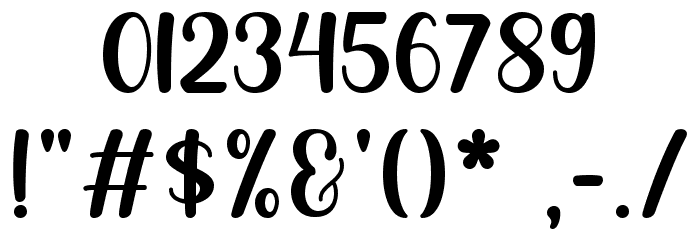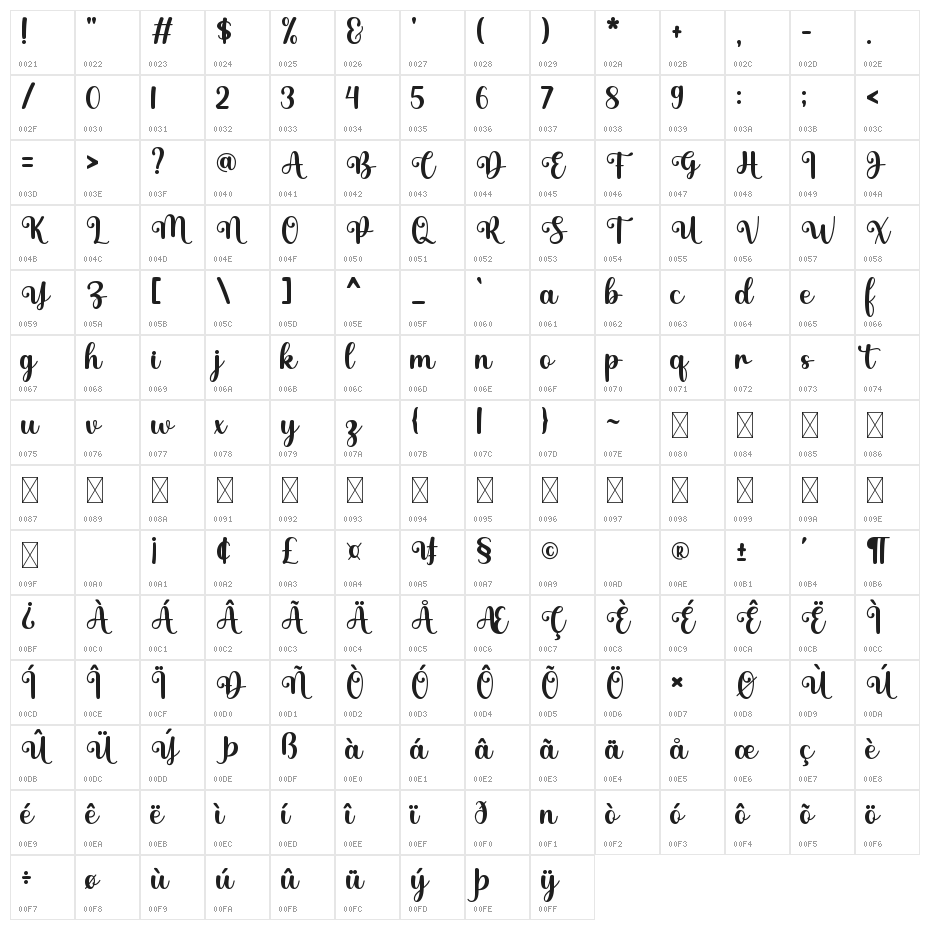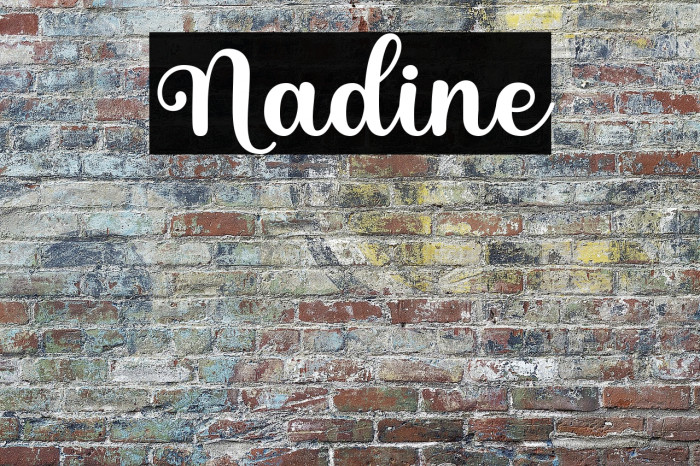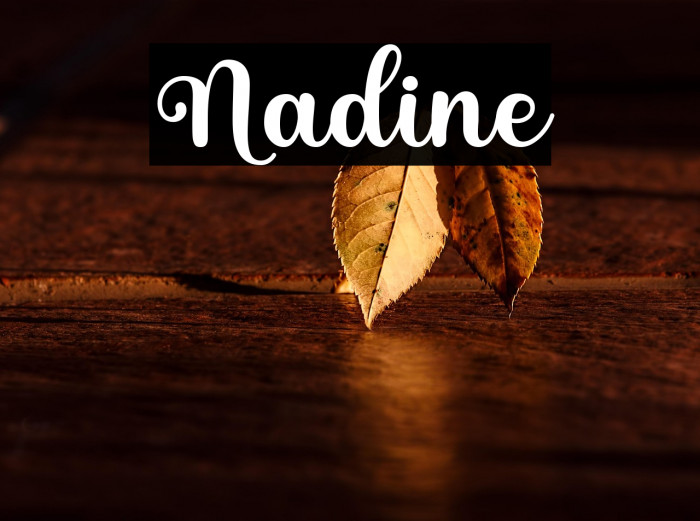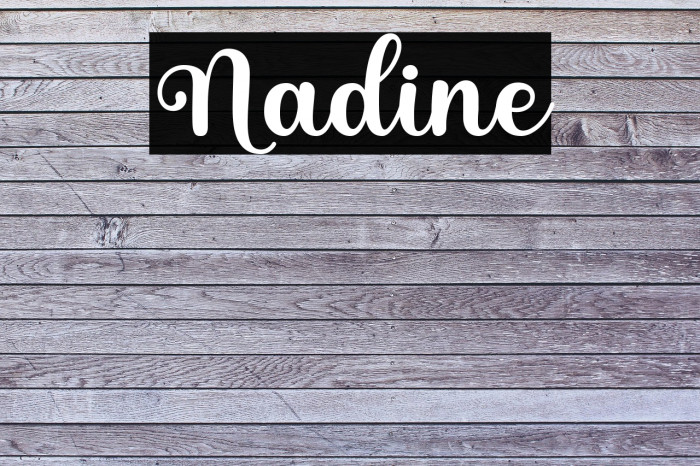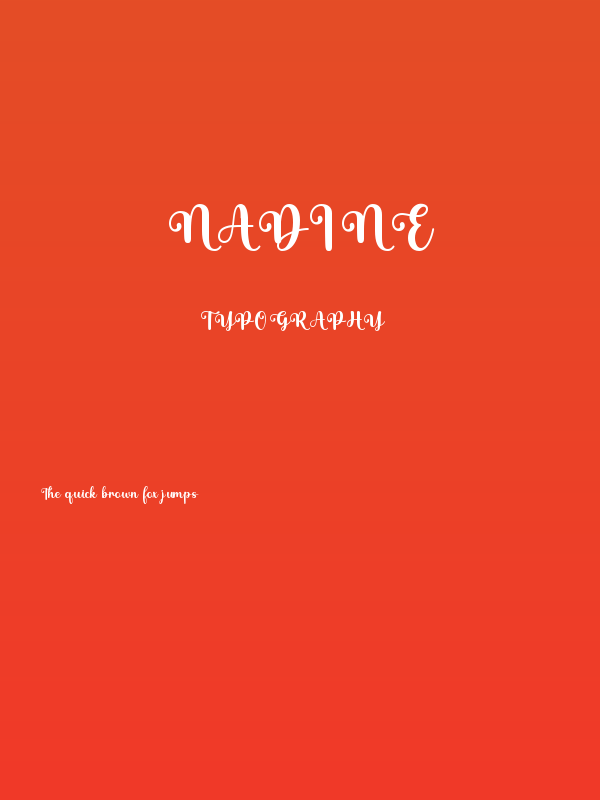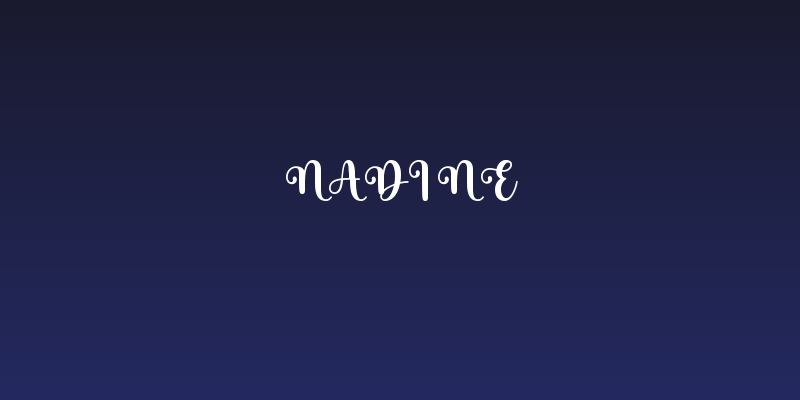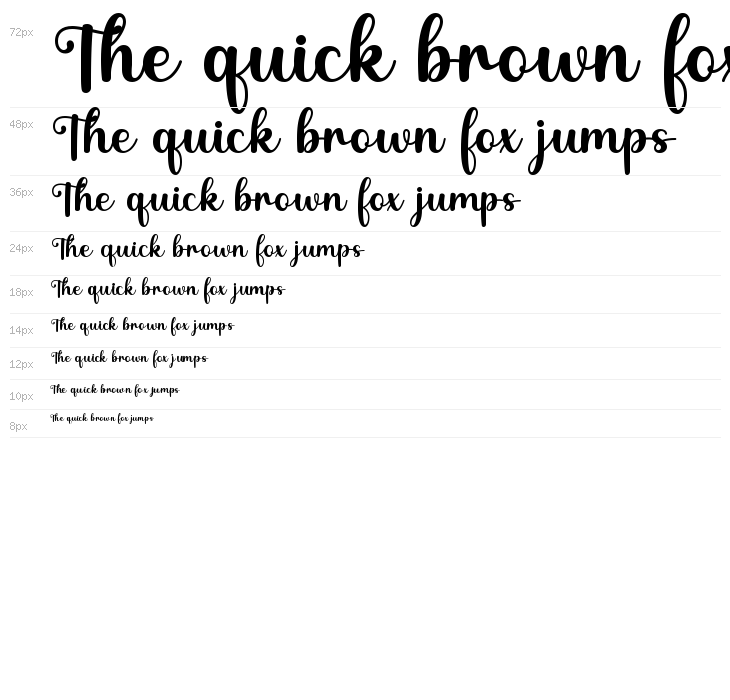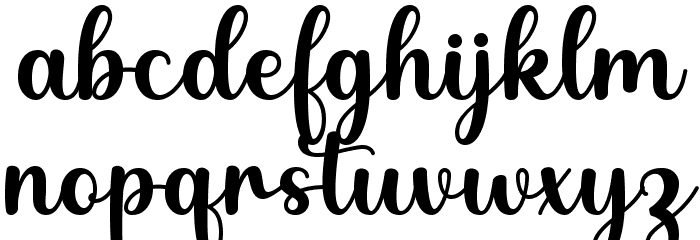
Nadine Font
Nadine Description
This font features a playful and elegant script style with a flowing, cursive design. The uppercase letters are adorned with decorative swirls and loops, giving them a whimsical and artistic flair. The lowercase letters maintain a consistent flow, with smooth curves and a slightly exaggerated slant that enhances readability while adding a touch of sophistication. The numerals are bold and clear, matching the overall aesthetic with a slight flourish. Special characters are designed to complement the alphabet, maintaining the same decorative and cohesive style. This font is perfect for projects that require a personal, handwritten touch, such as invitations, greeting cards, and branding materials.